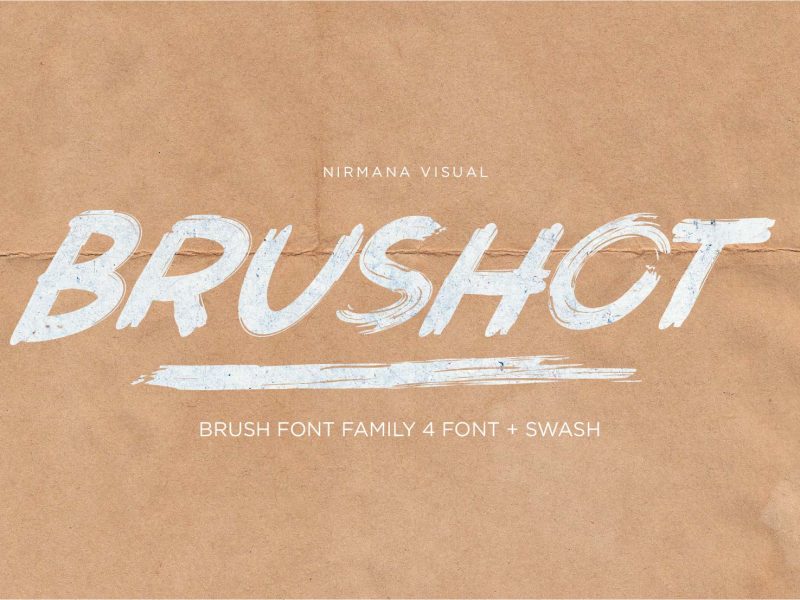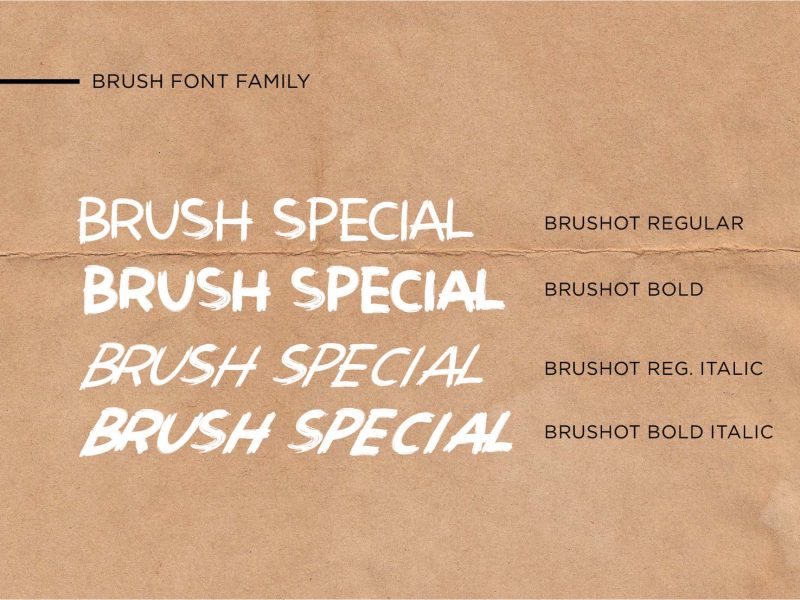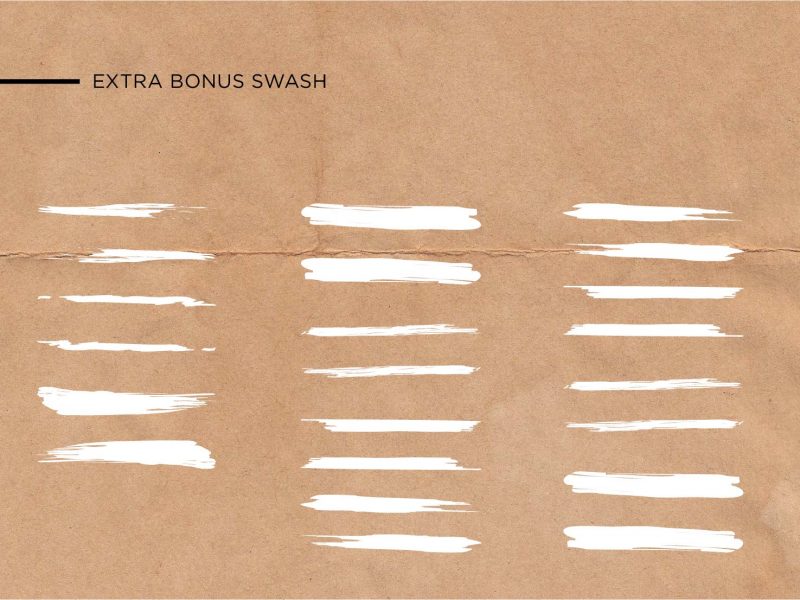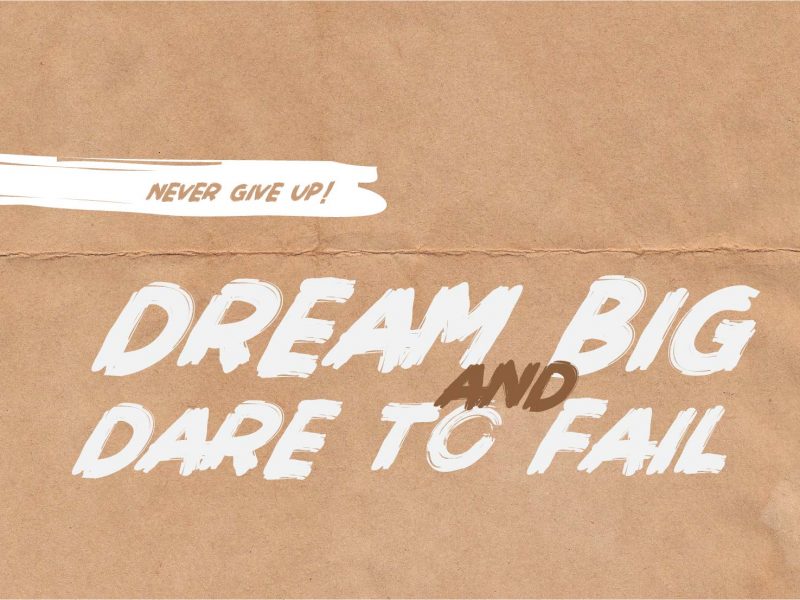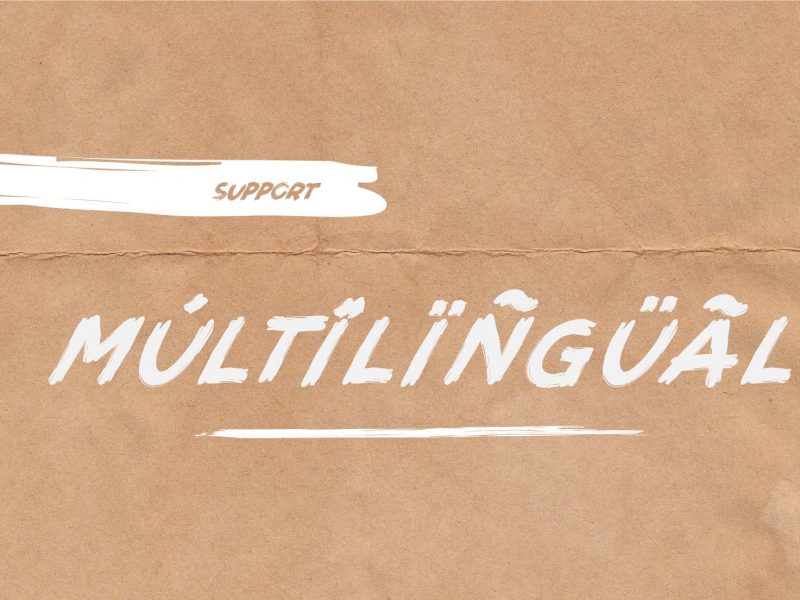
Brushot Brush Font
Brushot offers beautiful typographic harmony for a diversity of design projects,
including logos & branding, social media posts, advertisements & product designs.
designed to work as perfect companions or simply as strong standalone typefaces:
1. Brushot Regular
2. Brushot Regular Italic
3. Brushot Bold
4. Brushot Bold Italic
5. Swash
• Fonts include multilingual support